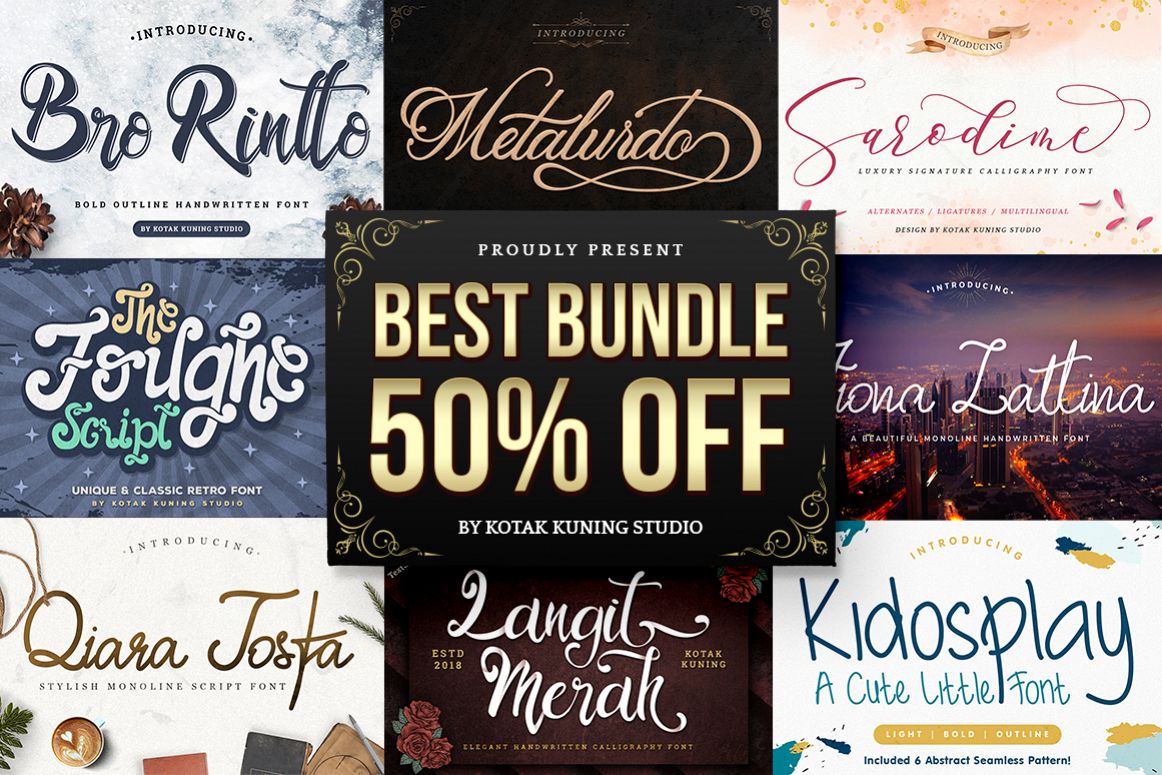
Craft Bundle - Best Collection
Handcrafters Best Bundle is a script font bundle with a natural & stylish flow. This font has a multitude of natural-looking ligatures in its OpenType features - making the font look as close to natural handwriting as possible. This collection of scripts is perfect for branding.
This Bundle is perfect for many different projects such as logos & branding, invitation, stationery, wedding designs, social media posts, advertisements, product packaging, product designs, label, photography, watermark, special events or anything.